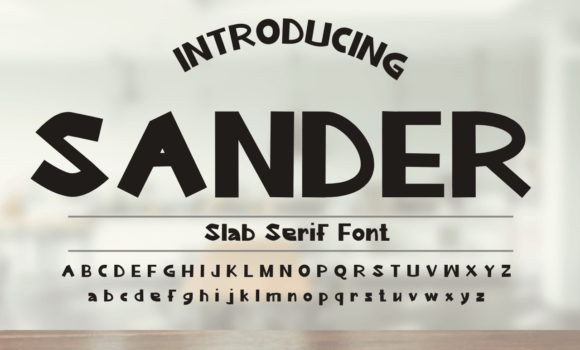
sander
Sander Font – Free Download Introduction to Sander Font Sander is a sweet and friendly slab serif font. 📸 Preview Gallery 6 images 📌 Product Name Sander Font 👤 Author Pukka De 📂 Category Explore ⬇️ Download Sander Font FREE